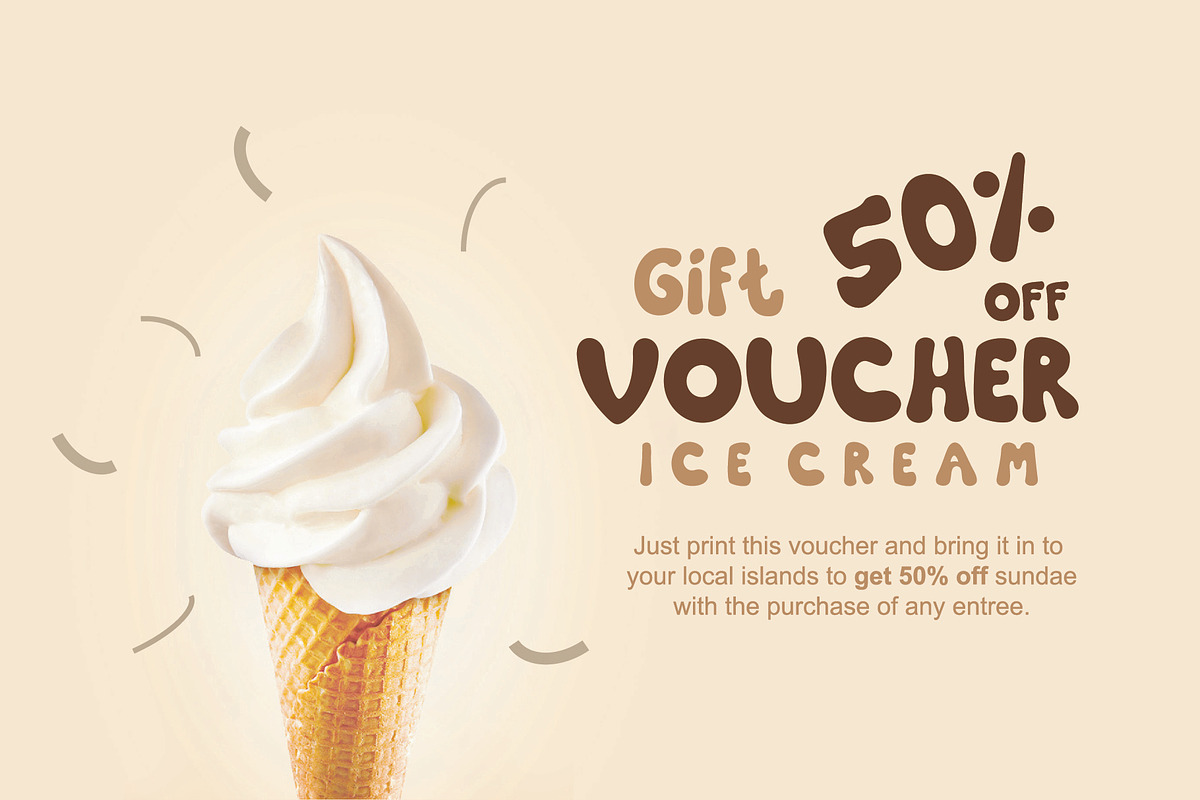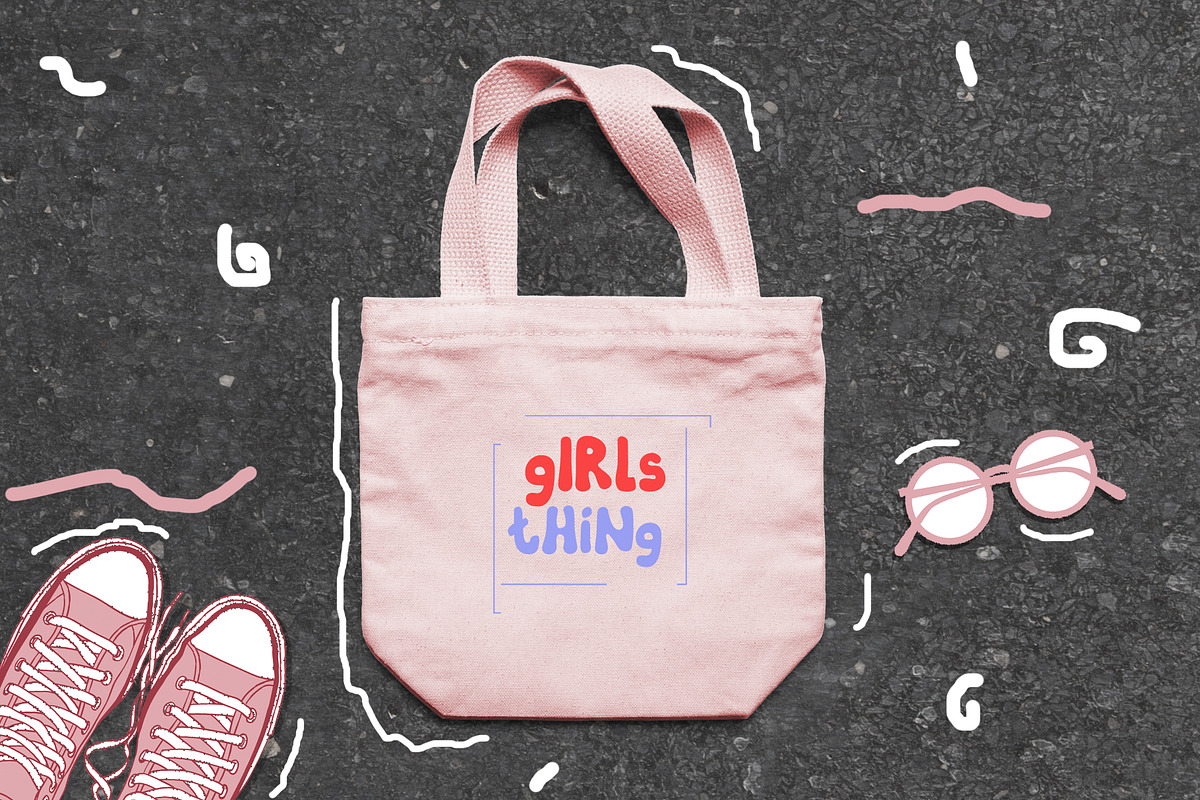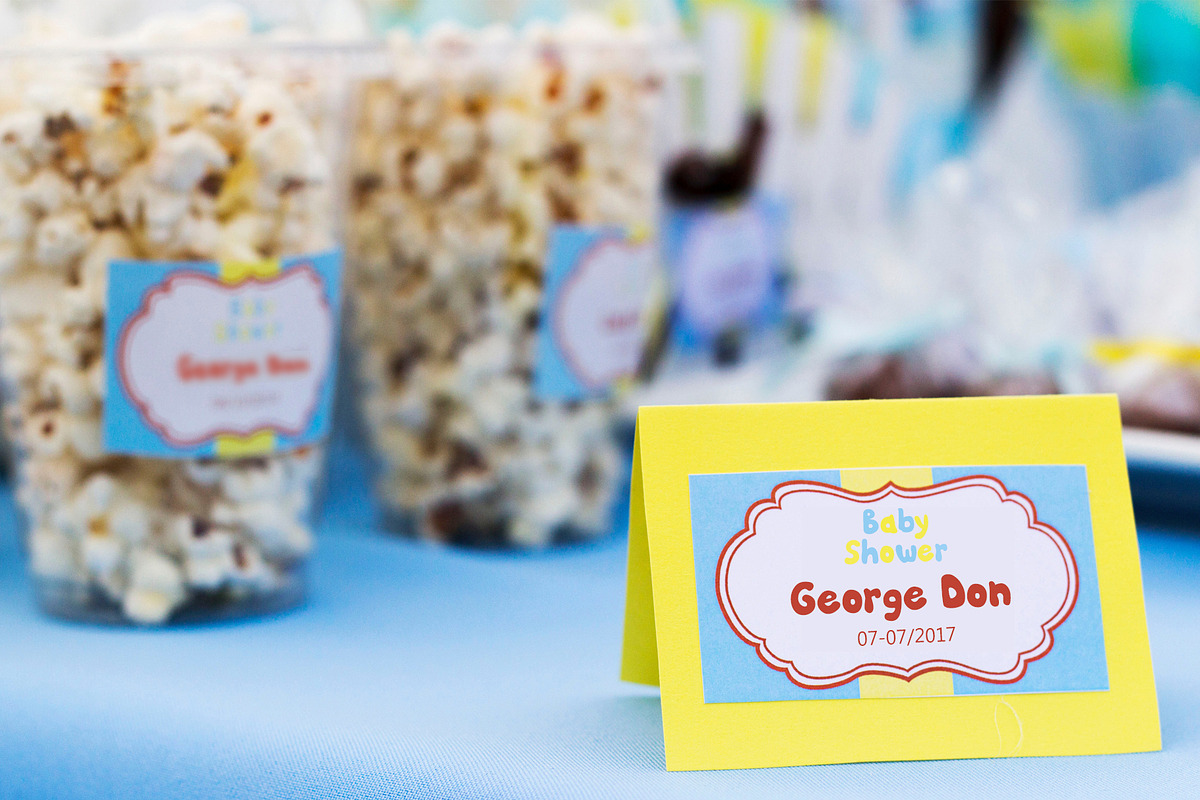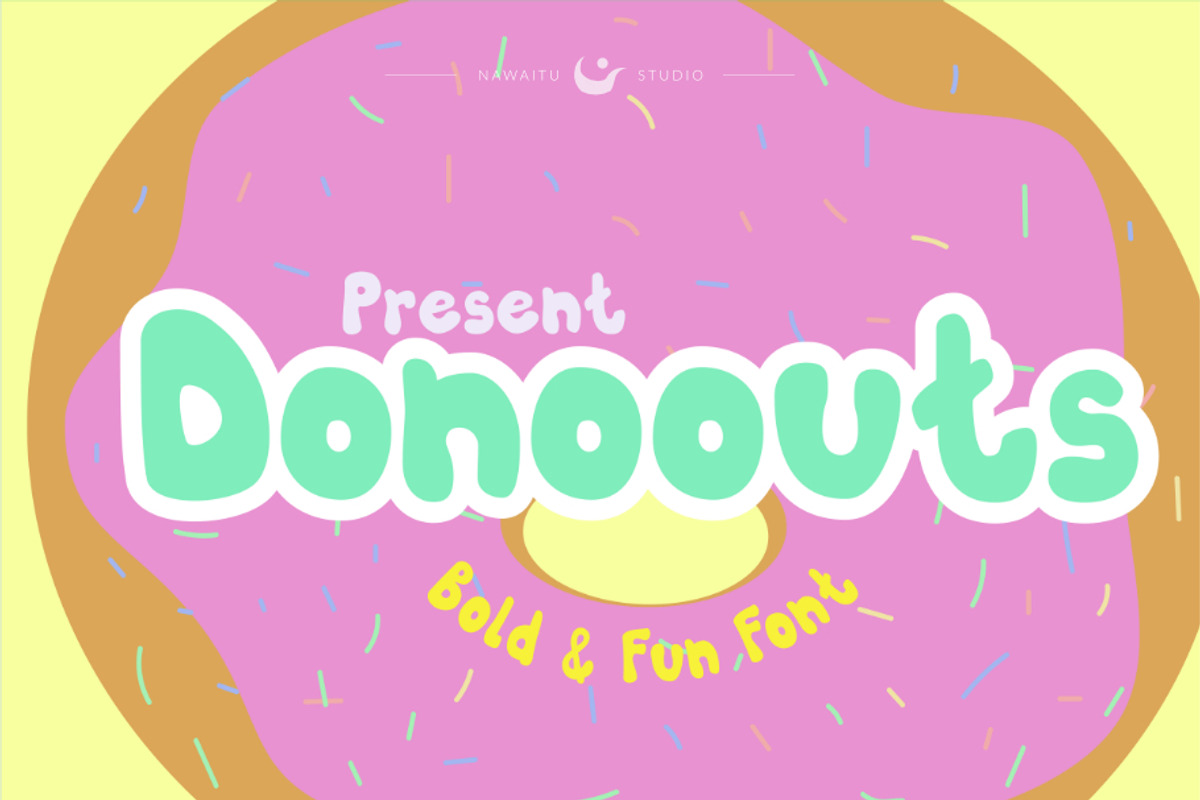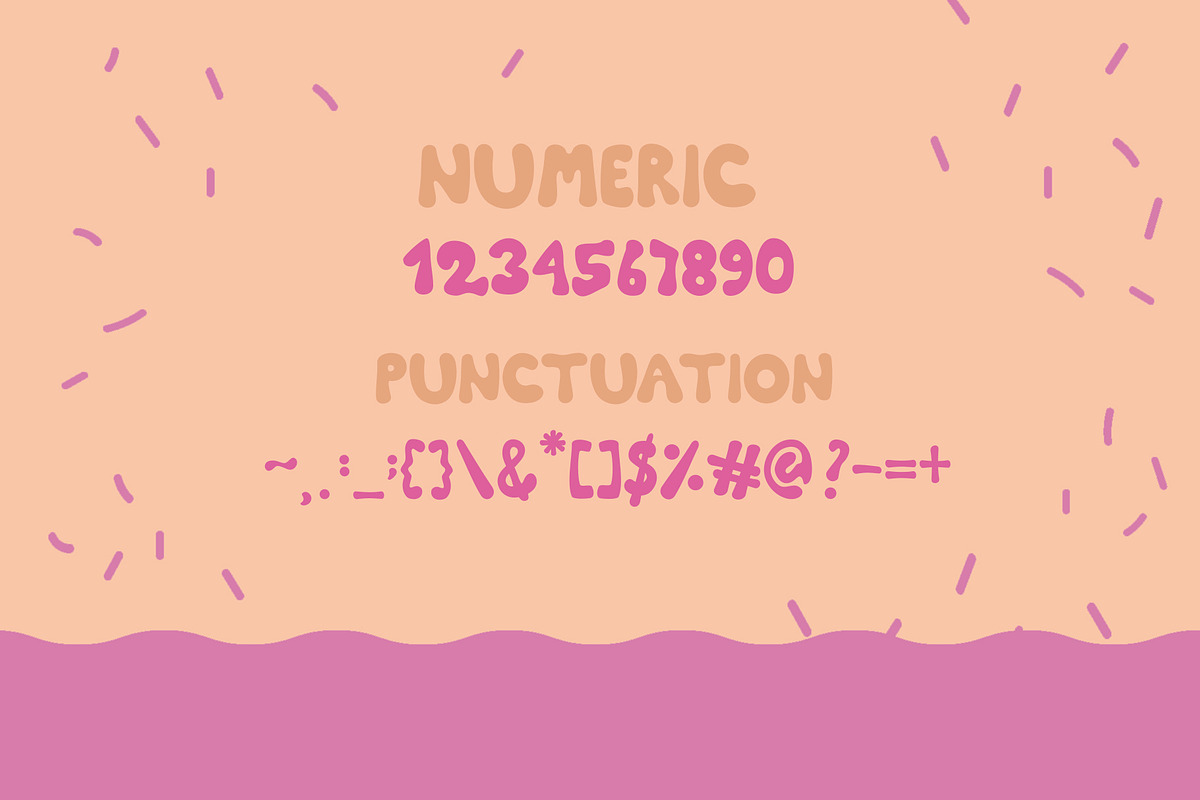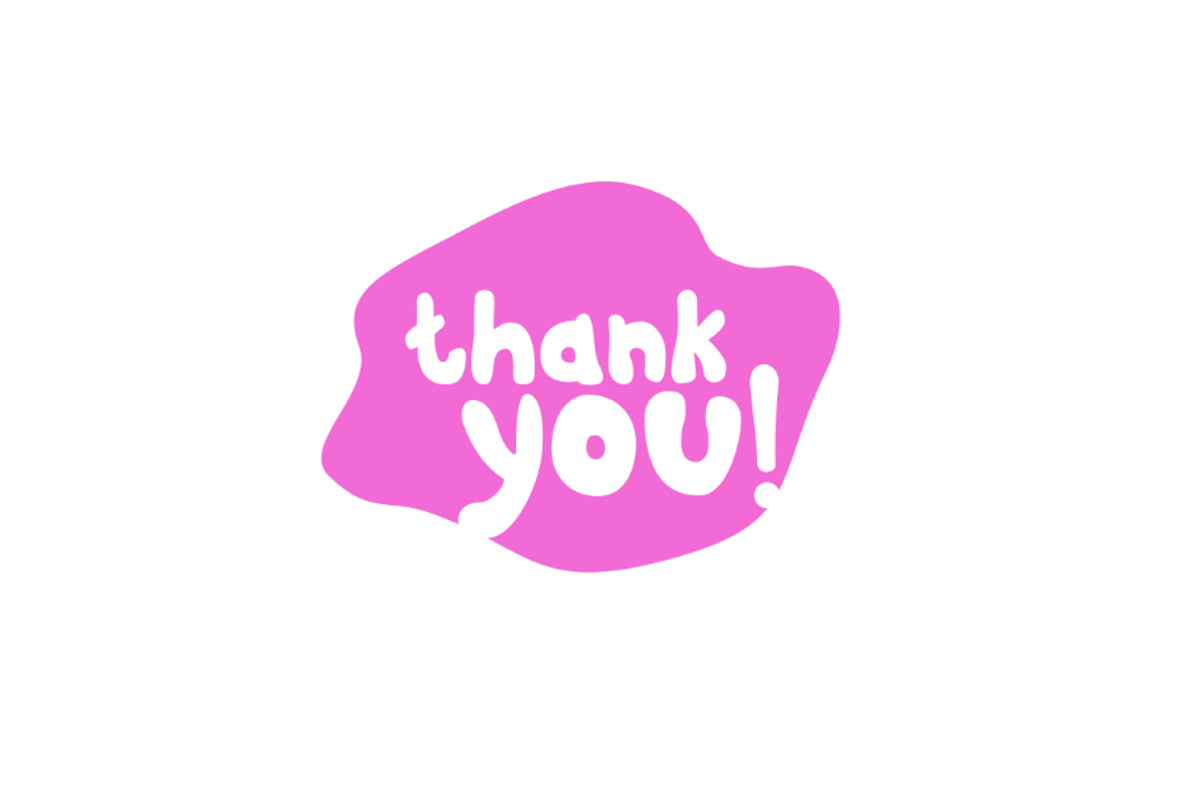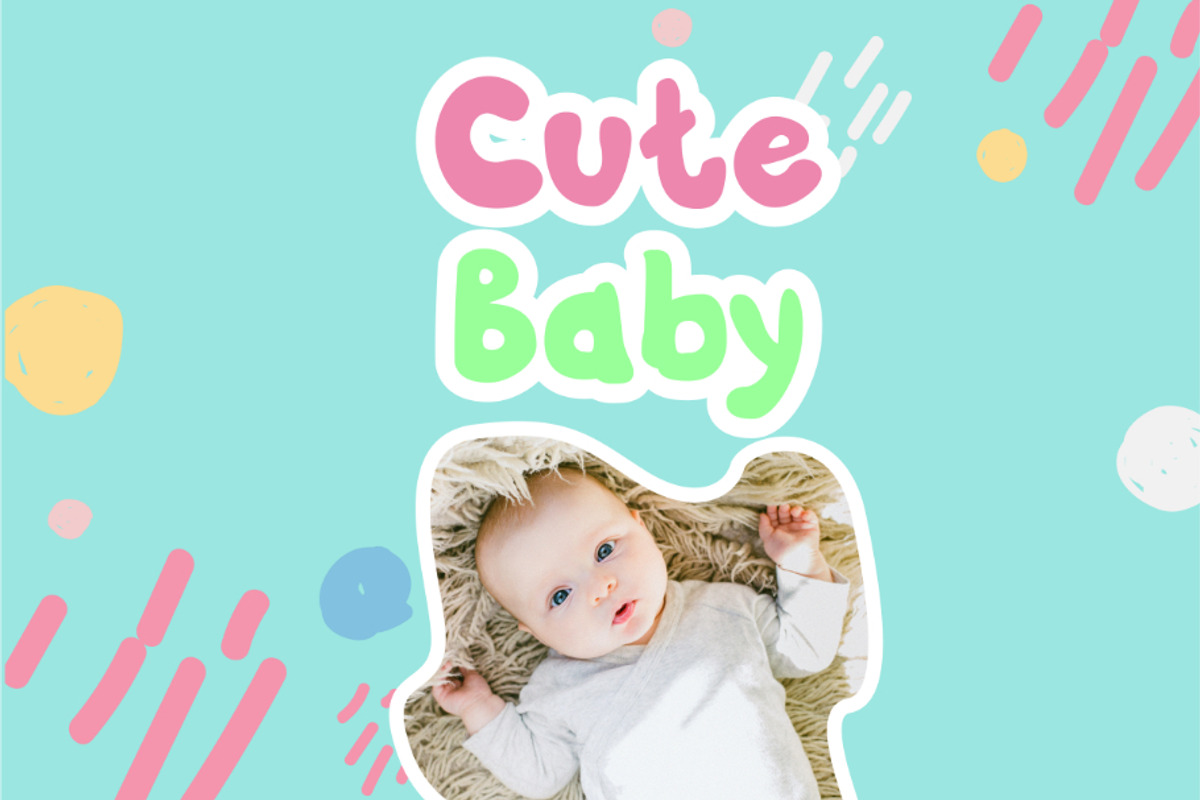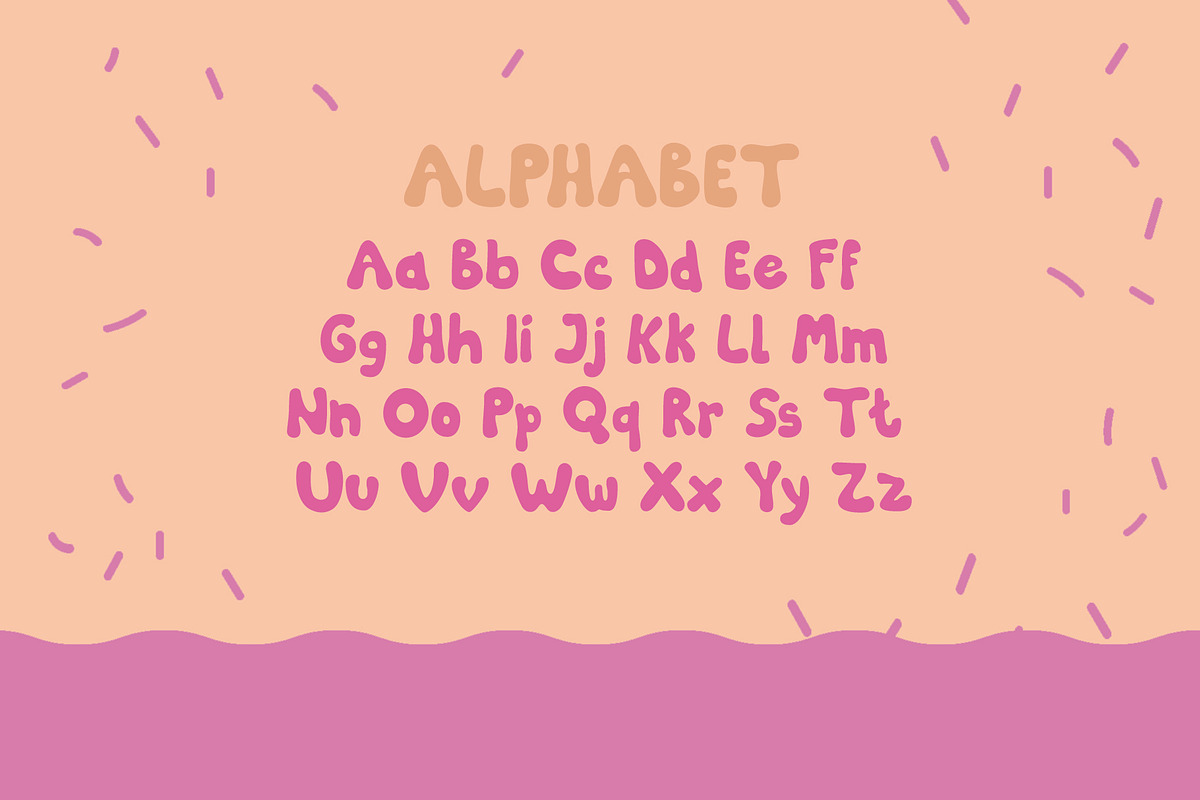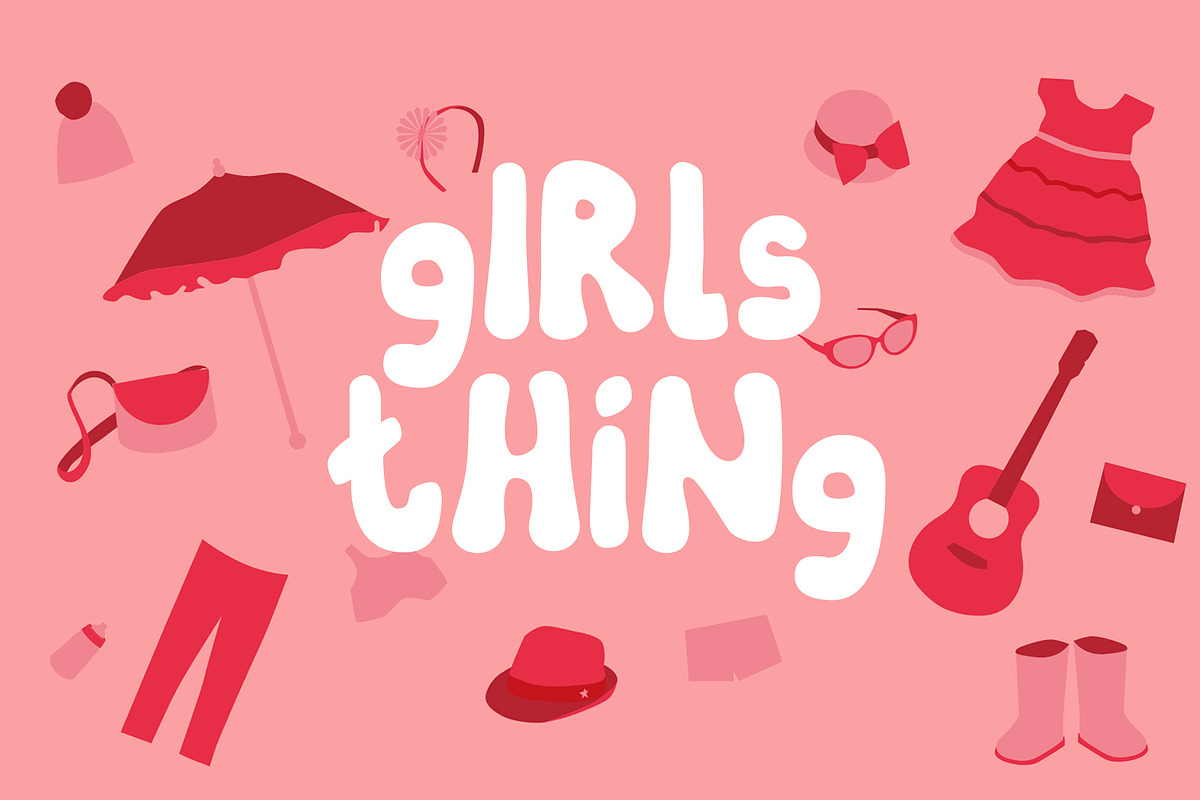
Donoouts Bold and Fun Font
Donoouts font has a unique and funny impression, perfect used for invitations, frames, wall decorations, clothing brands, screen printing and others that have a funny impression too.